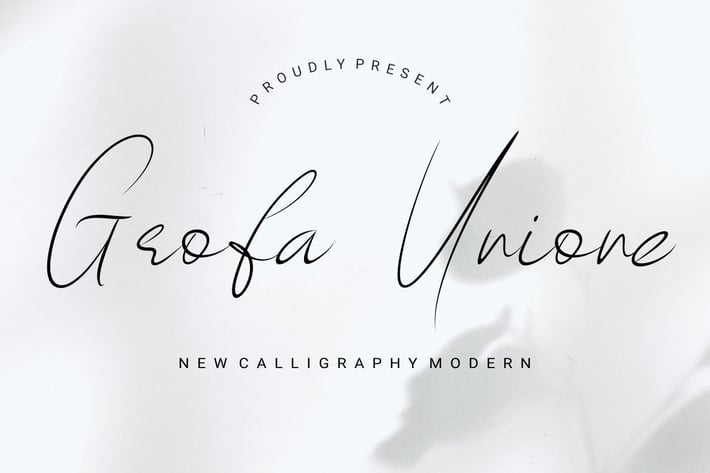
GrofaUnione - Calligraphy Modern Font
Introducing our new product GrofaUnione - Calligraphy Modern Font Modern Font
GrofaUnione - Calligraphy Modern Font - Modern Font is a bold and authentic display font. The font is suitable for any branding project like logo, t-shirt printing, esport, and many more. outstanding in a wide range of contexts.